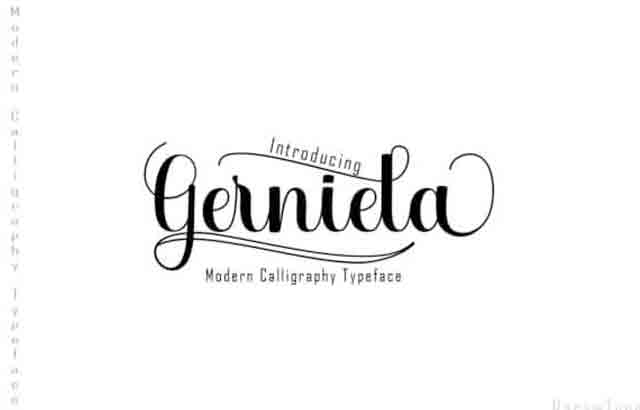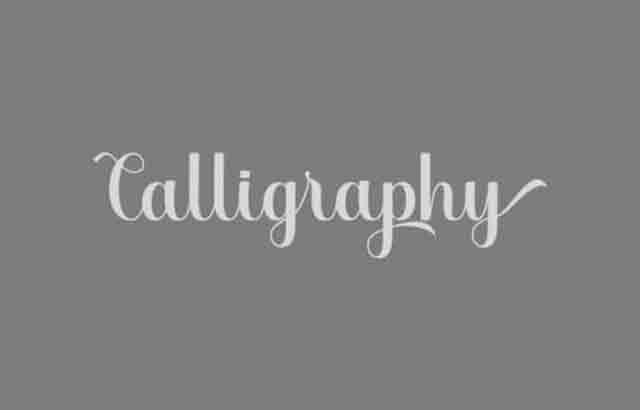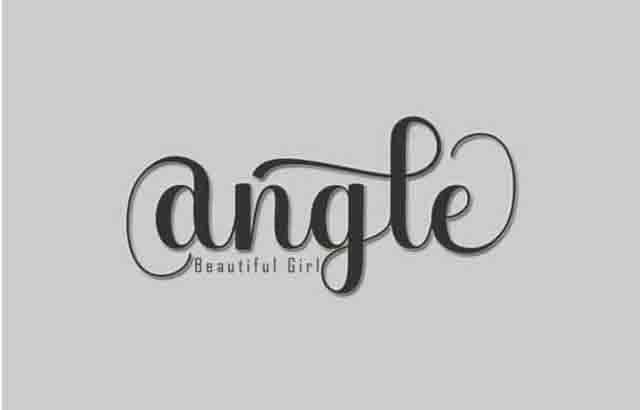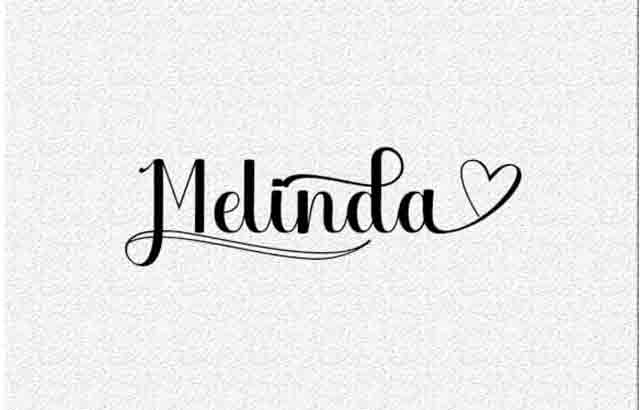
Gerniela is a sweet and charming handwritten font with a beautiful style. Fall in love with its incredible swashes, and use it to turn any design project into a piece of art.
Gerniela a font work that is purely handwritten has its own characteristics with the style of Script font. this is perfect for invitations, signatures, blogs, social media, business cards, product brands.
Gerniela has Stylistic standard, Stylistic Alternate, Stylistic Sets, and ligatures. and includes uppercase and lowercase letters, numbers and punctuation marks.
The Features of this fonts is:
1)Standart ligatures
2)Stylistic Alternates
3)Contextual Alternates
4)Stylistic sets